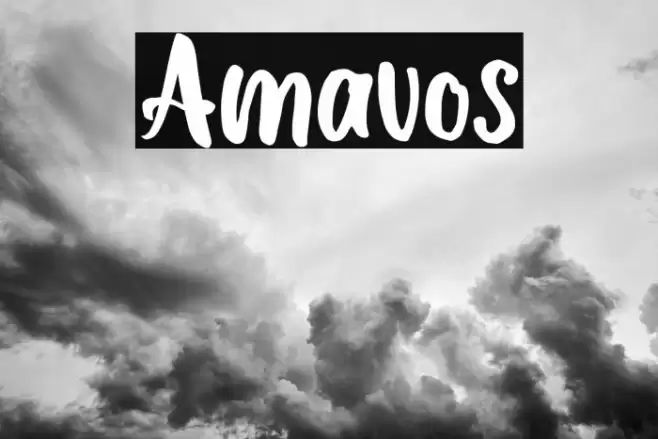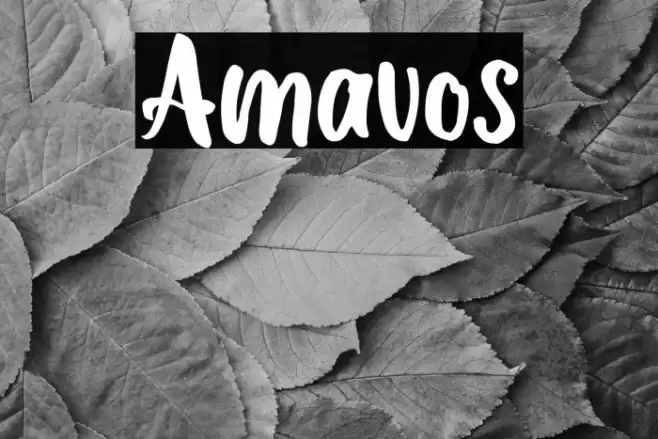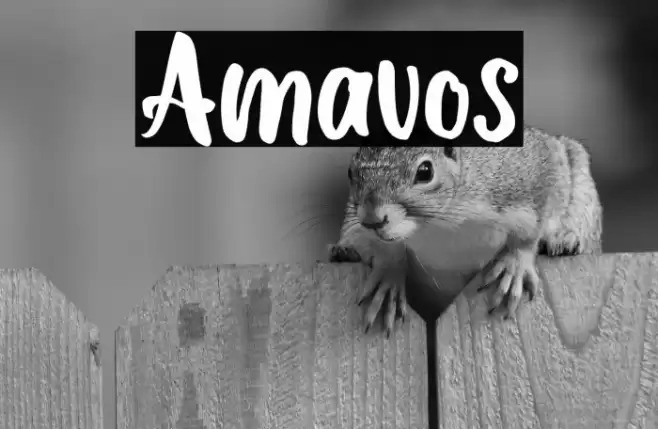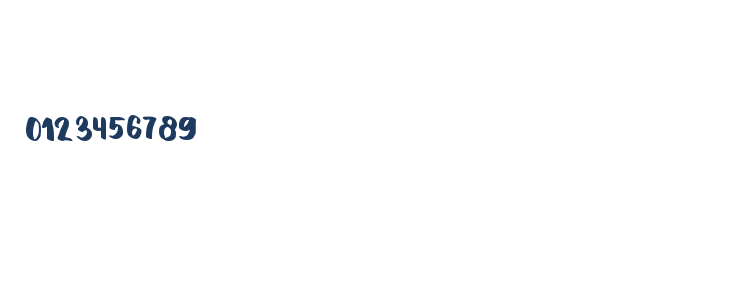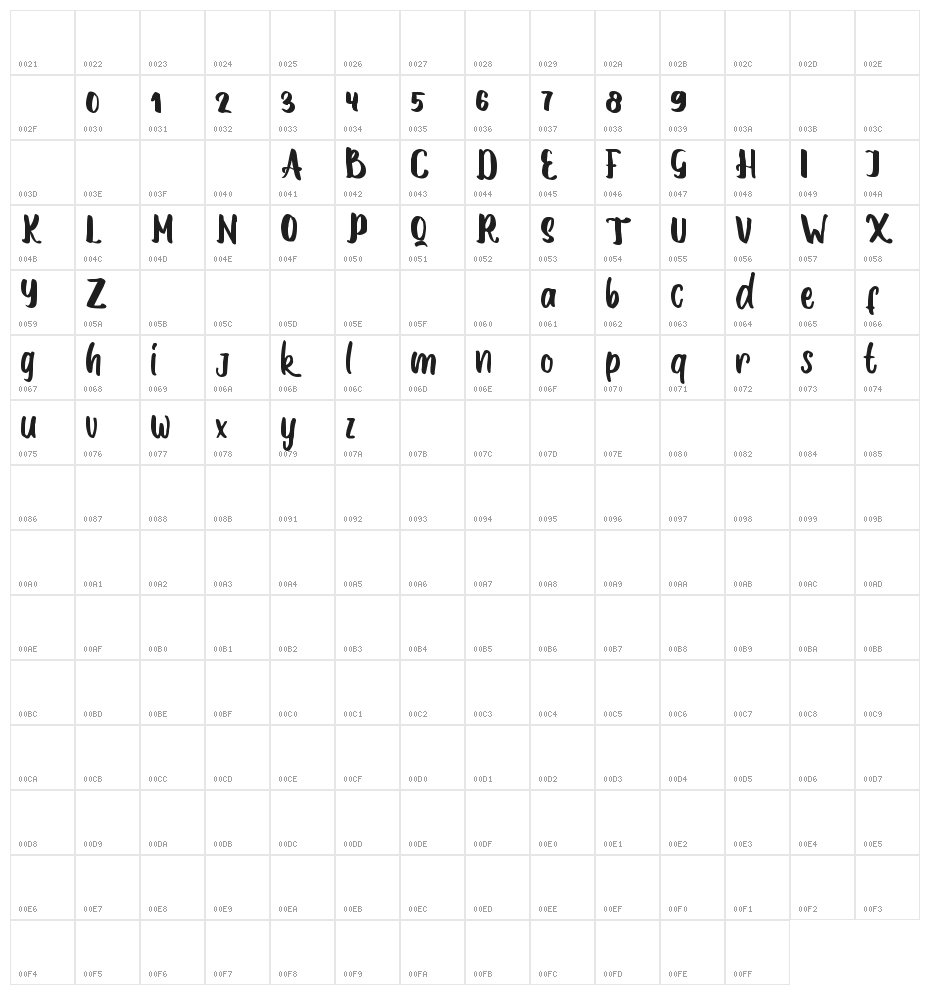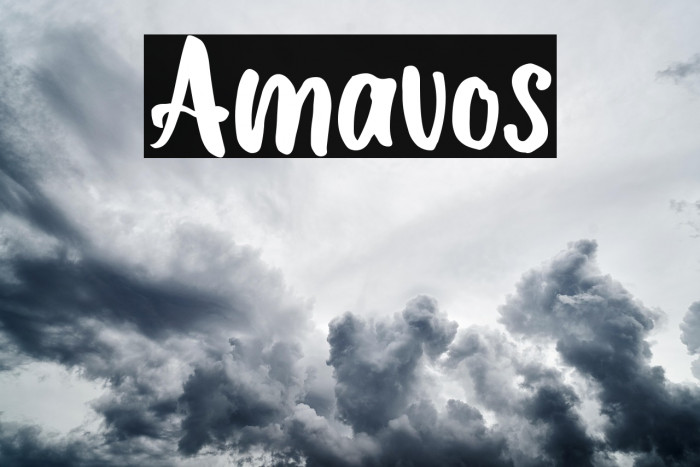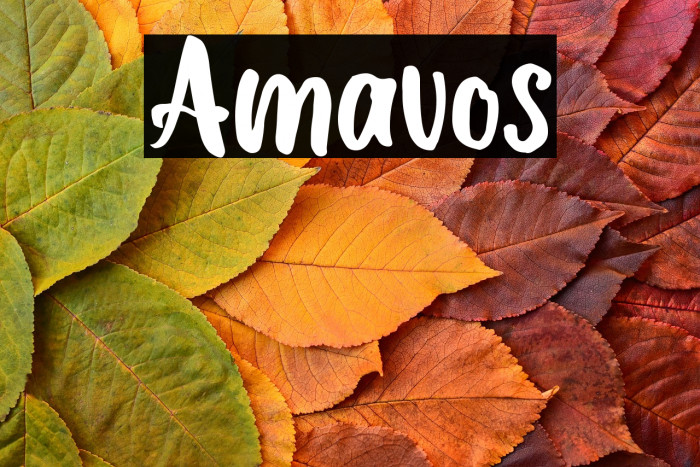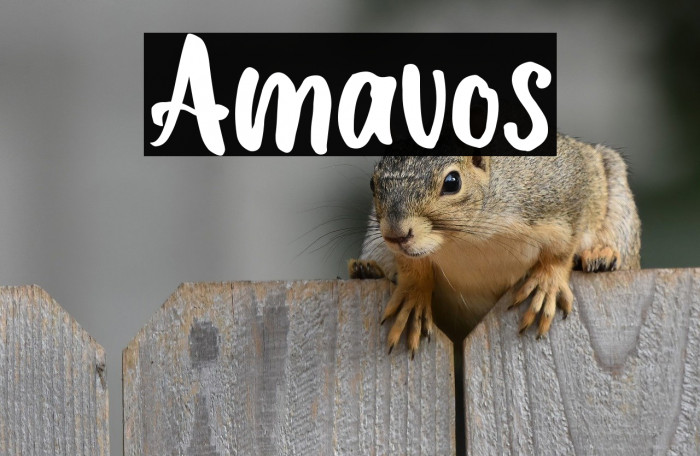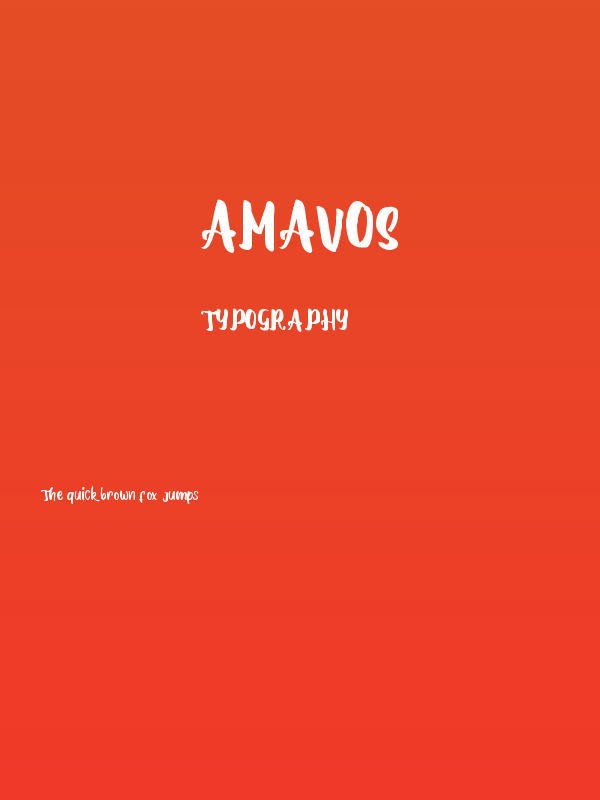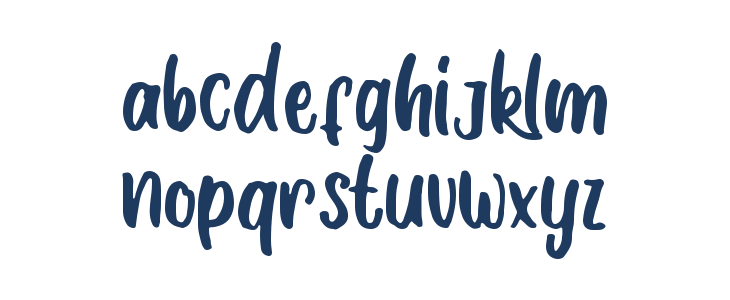
Amavos Font
Amavos Description
This font features a bold and expressive style with a handwritten feel. The characters are thick and rounded, giving a playful and energetic appearance. The uppercase letters are slightly taller than the lowercase, maintaining a consistent width that adds to the font's cohesive look. The numbers follow the same style, ensuring uniformity across all characters. The font's unique charm lies in its brush-like strokes, which create a sense of movement and dynamism. It's perfect for projects that require a personal touch, such as invitations, posters, or branding materials that aim to convey creativity and warmth.
A bold, handwritten-style font with brush-like strokes and playful energy from Regular fonts.
- Proposed Projects: Ideal for invitations, posters, branding materials, and creative projects.